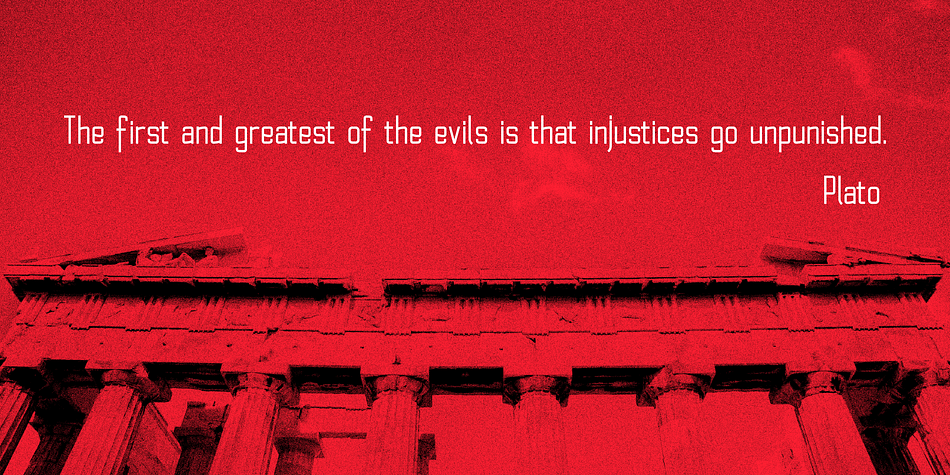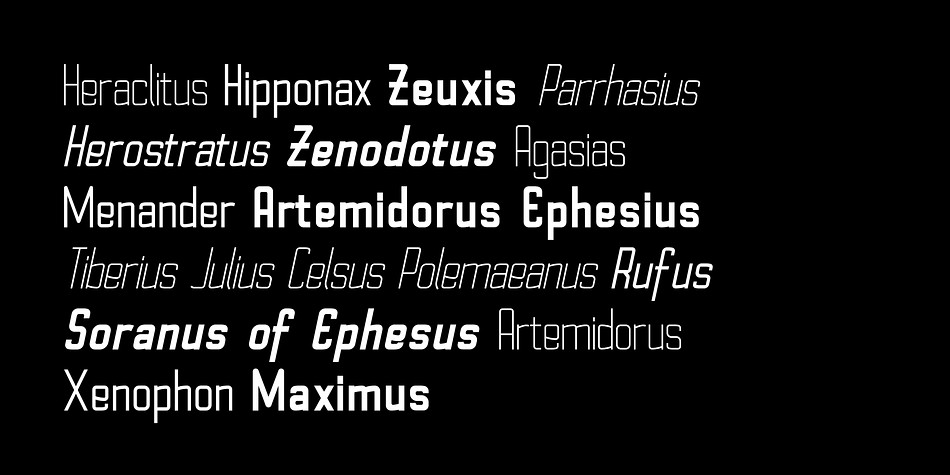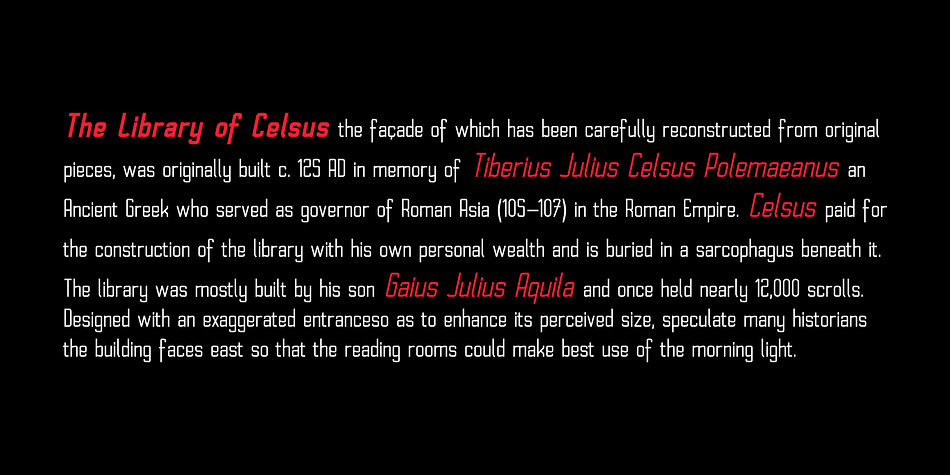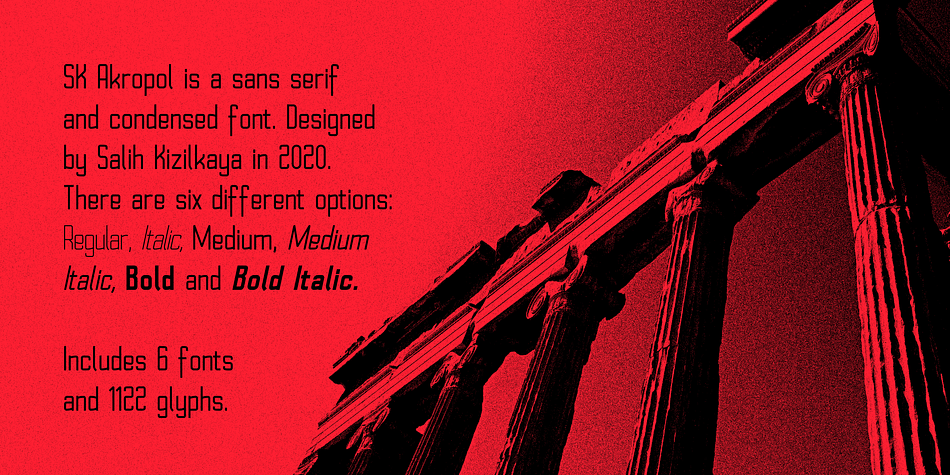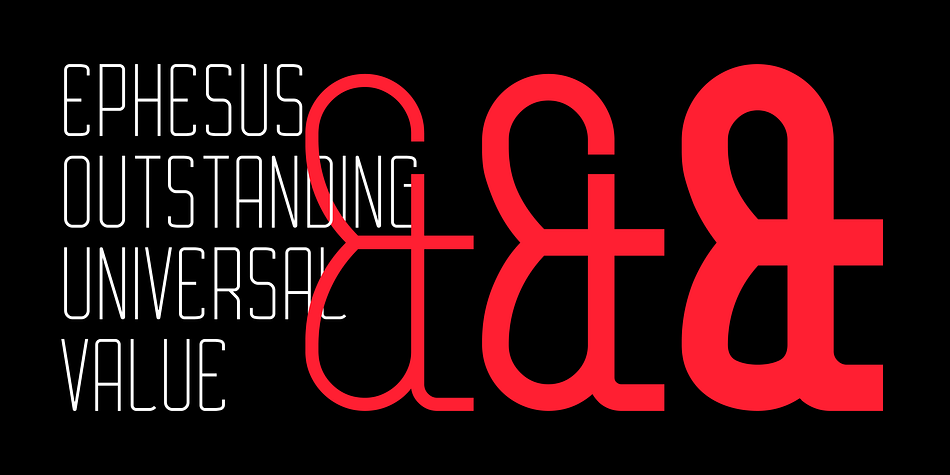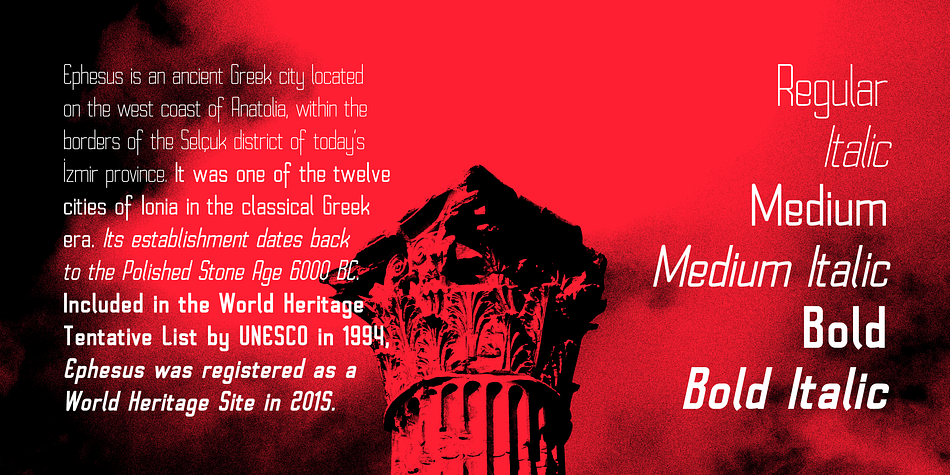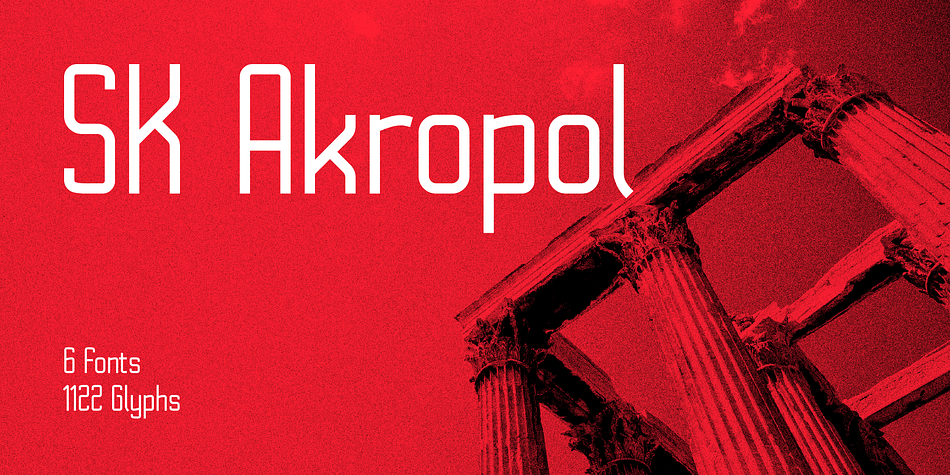
Designed by Salih Kizilkaya, SK Akropol is a display sans font family. This typeface has six styles and was published by Salih Kizilkaya.
SK Akropol is a sans serif and condensed font. Designed by Salih Kizilkaya in 2020. There are six different options: Regular, Italic, Medium, Medium Italic, Bold and Bold Italic. Includes 6 fonts and 1122 glyphs.